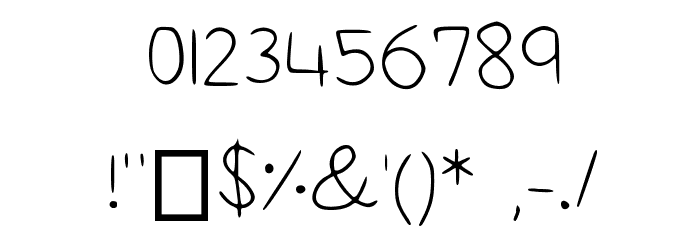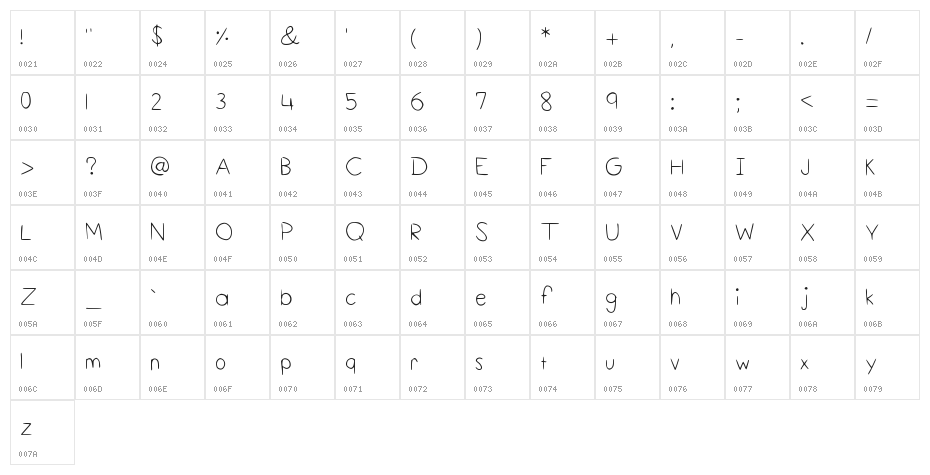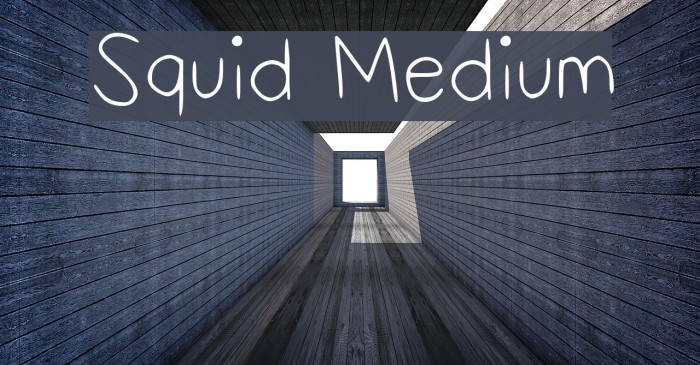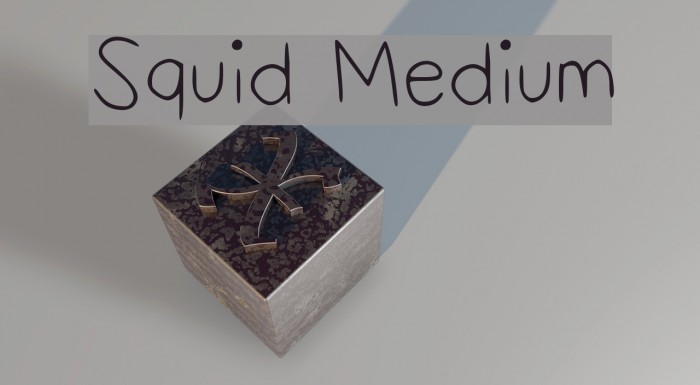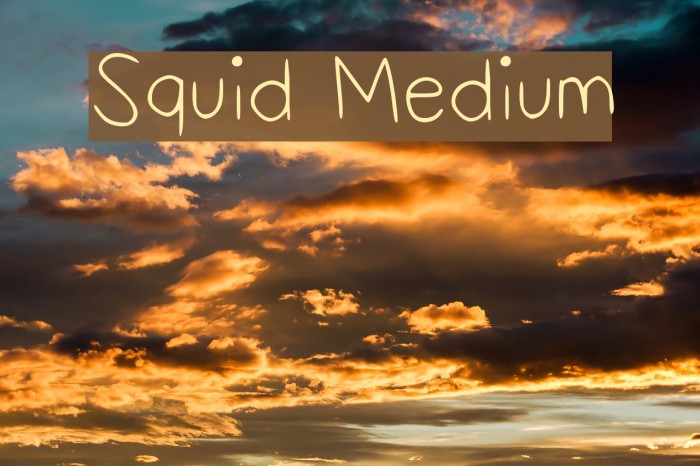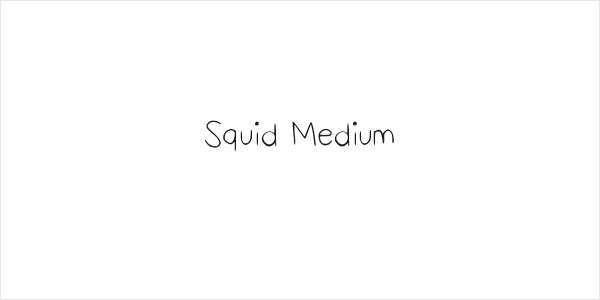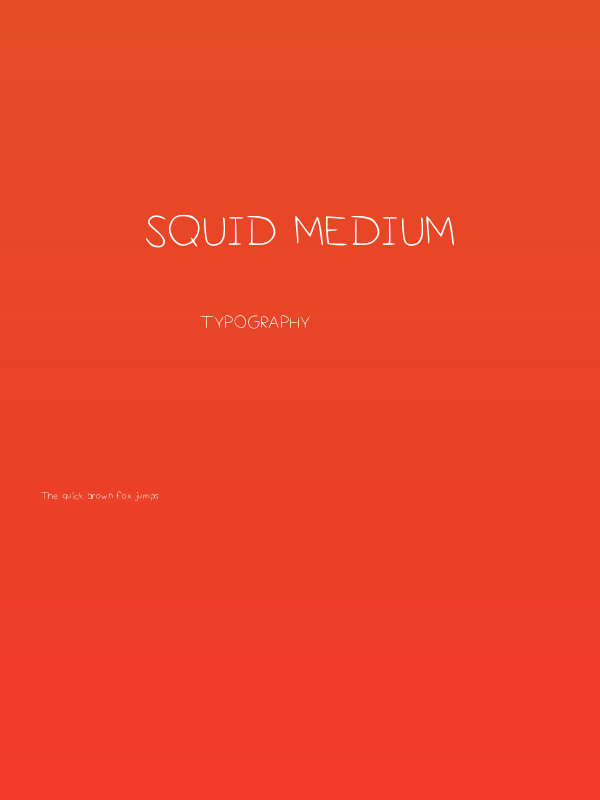
Squid Medium Font
Squid Medium Description
This font features a playful and informal style, characterized by its hand-drawn appearance. The letters have a whimsical and slightly irregular form, giving it a casual and friendly feel. The uppercase and lowercase letters maintain a consistent stroke width, contributing to its approachable aesthetic. The numerals and special characters follow the same playful design, ensuring uniformity across all glyphs. This font is well-suited for projects that require a touch of personality and creativity, such as children's books, greeting cards, or playful branding materials.
| Proposed Projects | Ideal for children's books, greeting cards, playful branding, and creative projects. |